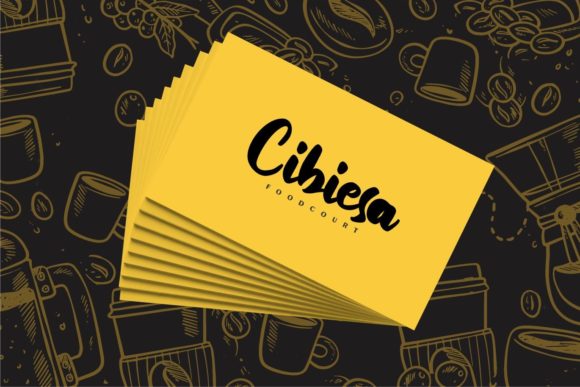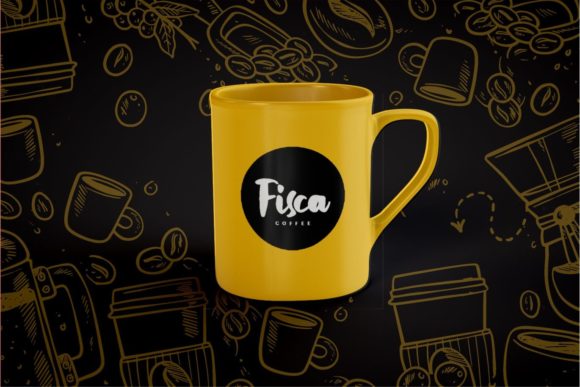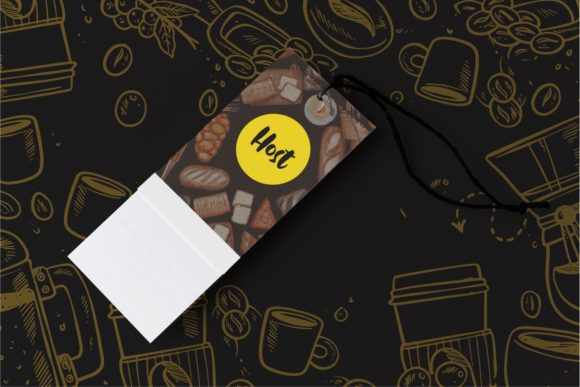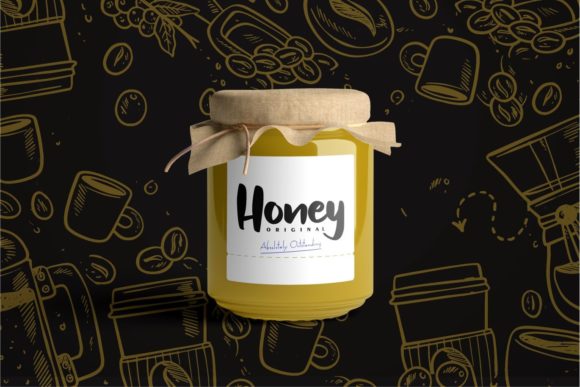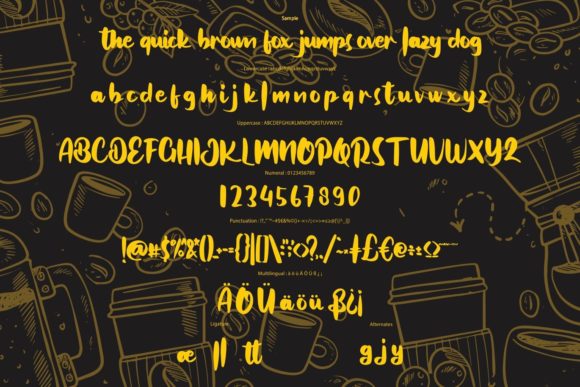
Bishos Font: Elevate Your Designs with a Chic and Thick Lettered Handwritten Style
In the world of typography, fonts play a crucial role in making or breaking a design. A perfect font can instantly elevate your project, making it stand out from the crowd. If you’re a designer or crafter looking for a trendy and eye-catching font, look no further than Bishos Font. This chic and thick lettered handwritten font is perfect for adding a touch of personality to your casual designs.
What is Bishos Font?
Bishos Font is a modern, handwritten font that boasts a unique and stylish aesthetic. Its thick letters and chic design make it perfect for a wide range of applications, from social media graphics to branding materials, and even craft projects. Whether you’re creating a logo, a poster, or a digital graphic, Bishos Font is sure to add a touch of sophistication and elegance.
Key Features of Bishos Font
- Chic and Thick Lettered Design: Bishos Font features a distinctive, thick lettered design that gives it a bold and eye-catching appearance.
- Handwritten Style: The font’s handwritten style adds a touch of personality and warmth to your designs, making them more relatable and engaging.
- Trendy and Modern: Bishos Font is a trendy and modern font that’s perfect for designers and crafters who want to stay ahead of the curve.
- Versatile: The font is versatile and can be used for a wide range of applications, from digital graphics to print materials.
Benefits of Using Bishos Font
So, why should you choose Bishos Font for your designs? Here are just a few benefits of using this amazing font:
- Adds Personality to Your Designs: Bishos Font’s unique and stylish design adds a touch of personality to your designs, making them more engaging and relatable.
- Perfect for Casual Designs: The font is perfect for casual designs, such as social media graphics, blog posts, and craft projects.
- Easy to Read: Despite its thick lettered design, Bishos Font is easy to read, making it perfect for body text and headings.
- Customizable: The font can be customized to fit your brand’s style and aesthetic, making it perfect for branding materials.
How to Use Bishos Font in Your Designs
Using Bishos Font in your designs is easy. Here are a few tips to get you started:
- Pair it with Other Fonts: Pair Bishos Font with other fonts to create a unique and stylish contrast.
- Use it for Headings and Titles: Use Bishos Font for headings and titles to add a touch of personality to your designs.
- Experiment with Colors: Experiment with different colors to find the perfect combination that matches your brand’s style and aesthetic.